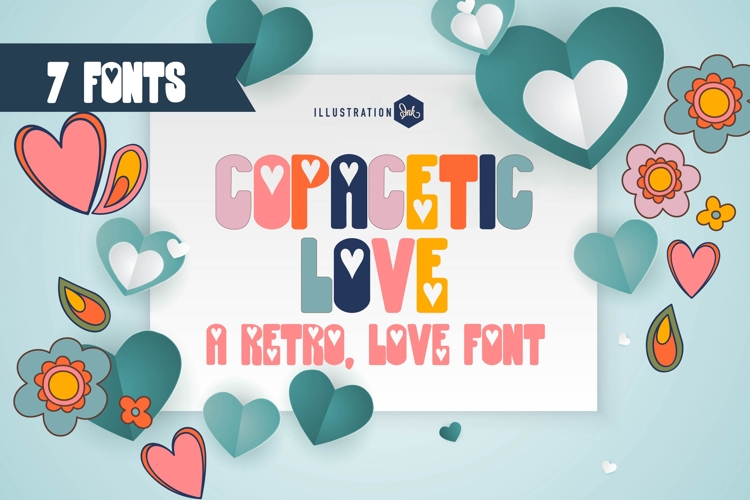
ZP Copacetic Font Family
This hand-crafted font is a retro style font with chunky, hippy-style lettering. 7 versions included, including love and cards.